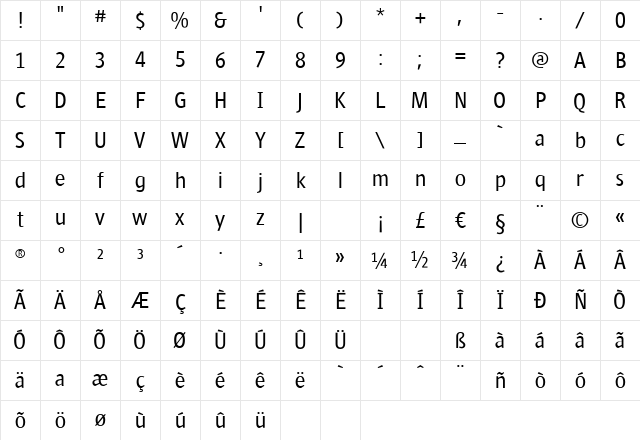
Yellow Regular
Design Context for Yellow
Yellow is a composed and adaptable typeface that performs quietly and consistently across a wide range of design contexts.